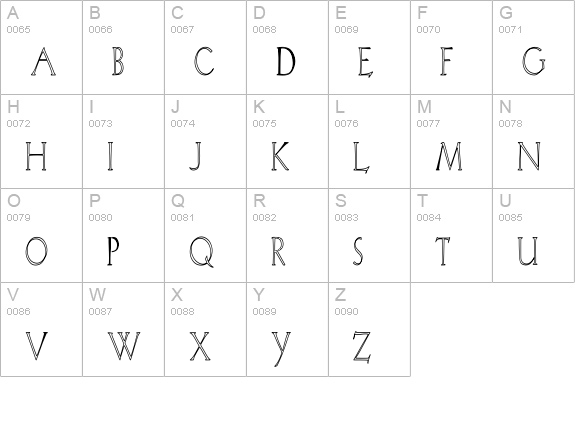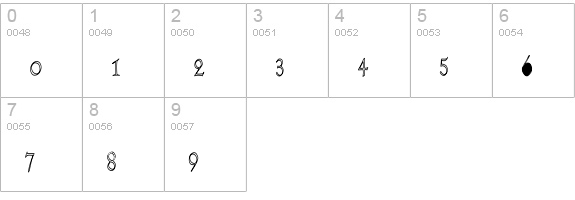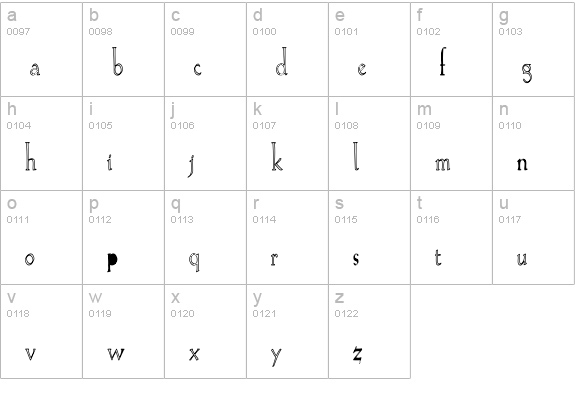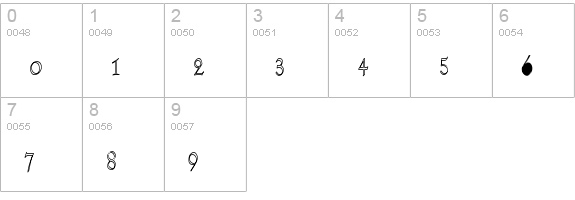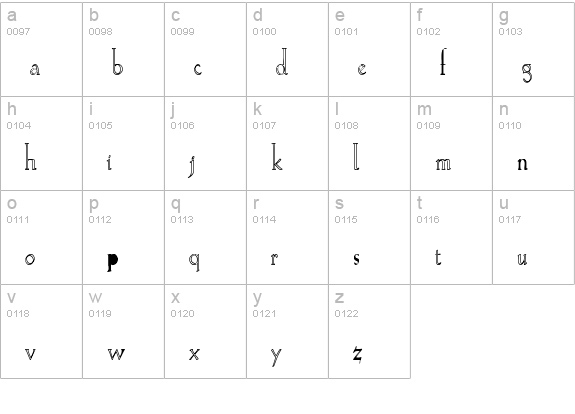
Lilith-LightHC font is a modern and elegant typeface that exudes sophistication and charm. With its sleek lines and delicate curves, this font is perfect for adding a touch of class to any design project. Whether you're creating a logo, branding materials, or a stylish website, Lilith-LightHC font will make your text stand out. What's even better is that Lilith-LightHC font is completely free! That's right, you can download this stunning font for no cost at all on FontsMarket.com. So why wait? Add a touch of elegance to your designs with Lilith-LightHC font today!